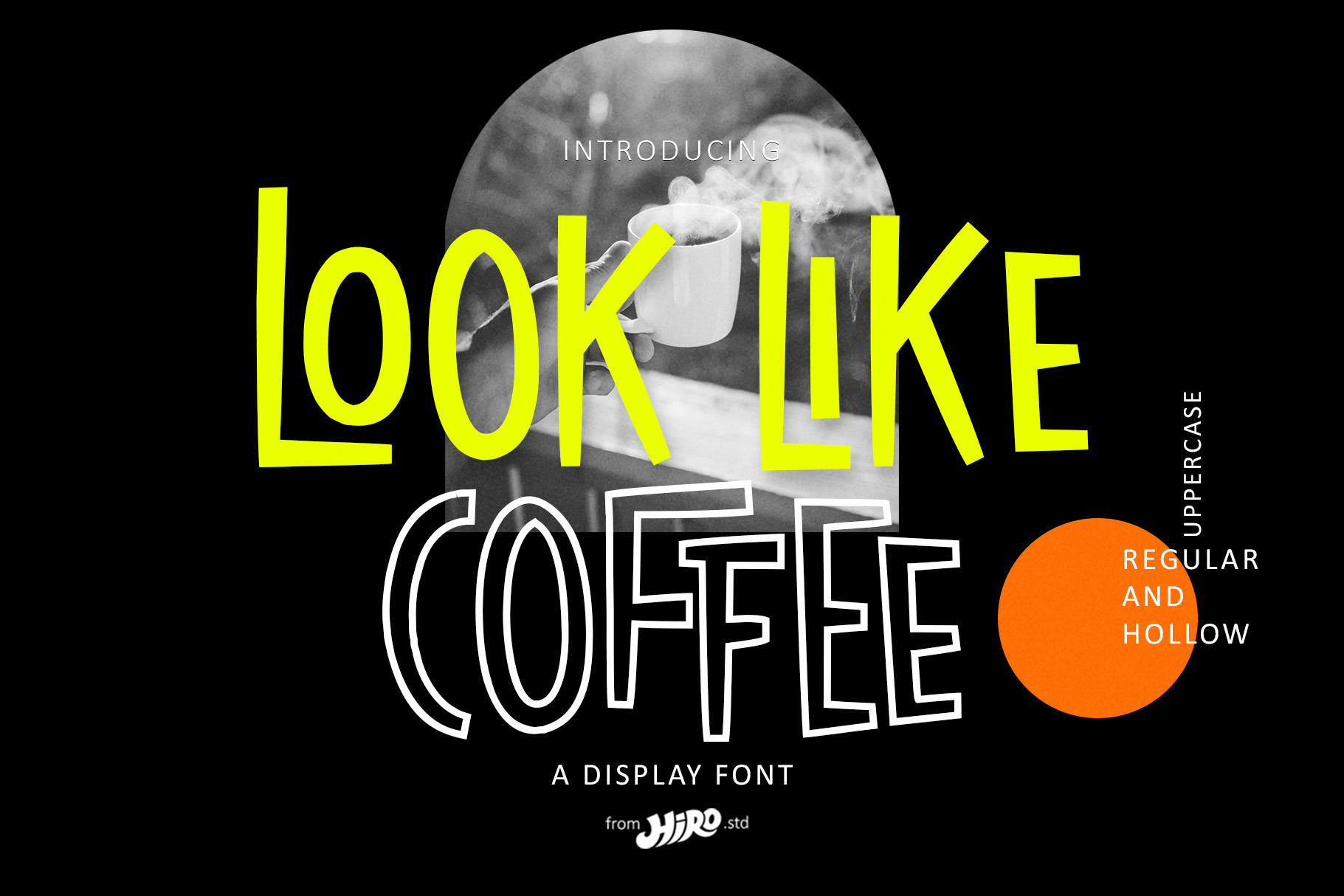
Look Like Coffee - Display Font
Look Like Coffee is a Display font.
This font describes about fun, semi casual, stylish, headline, easy going, dynamic, and easy to use.
USE Look Like Coffee works great in any product packaging, logotype, magazine, editorial, quotes and any projects that need all about fun and dynamic taste.